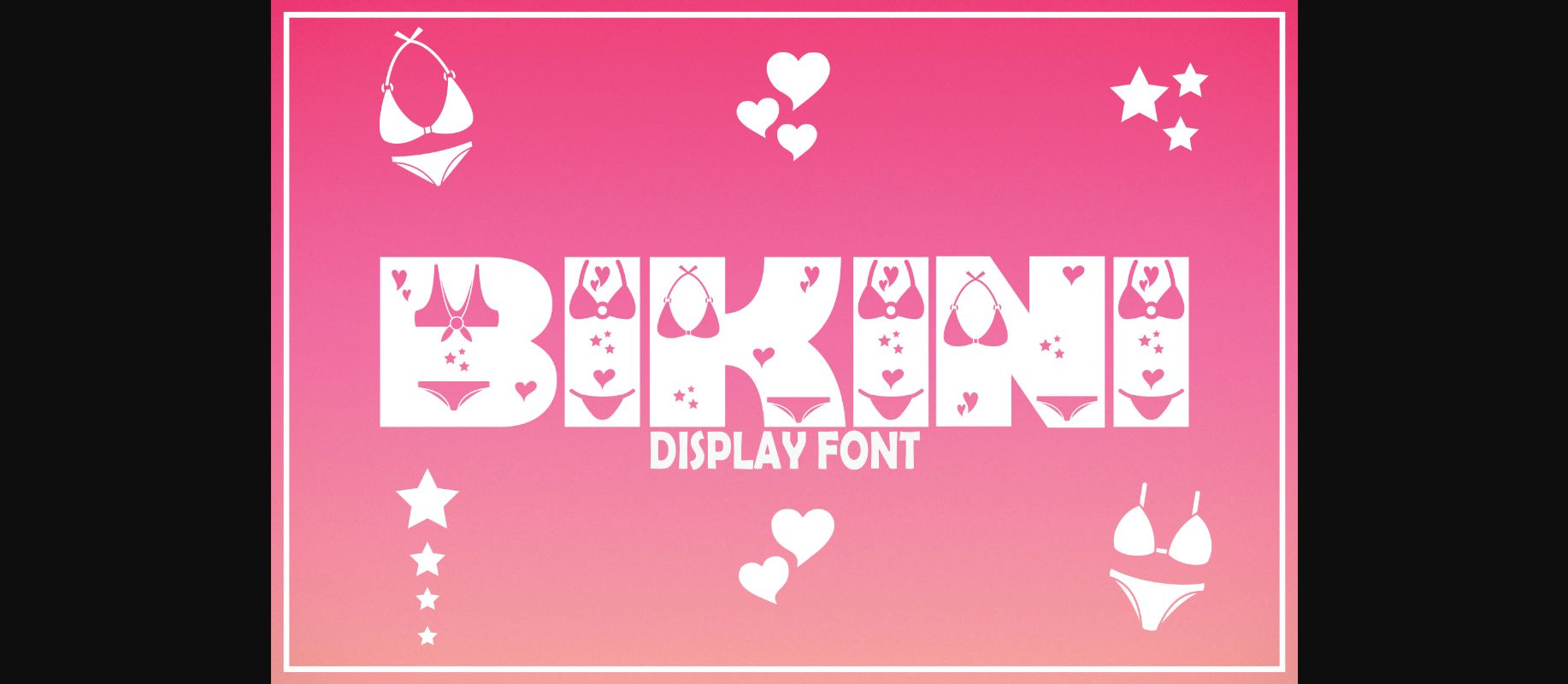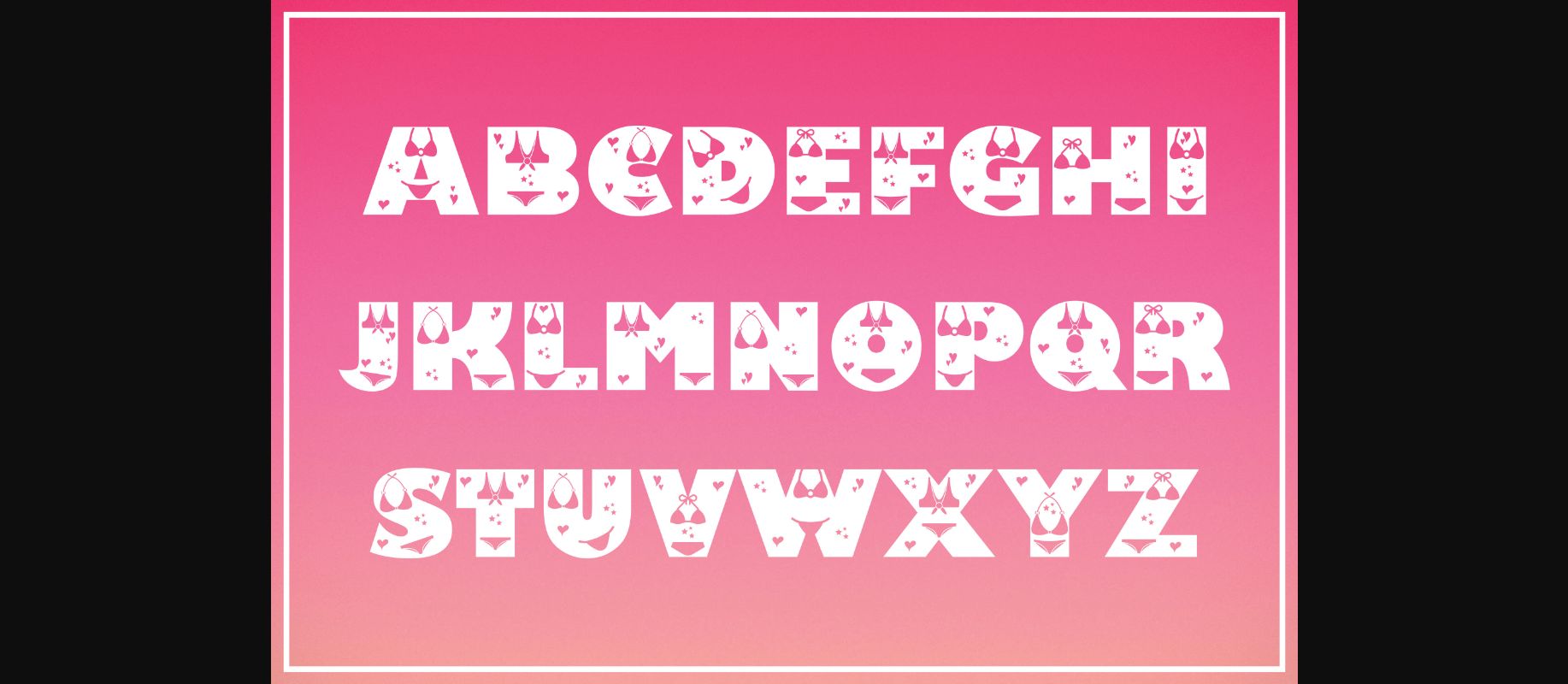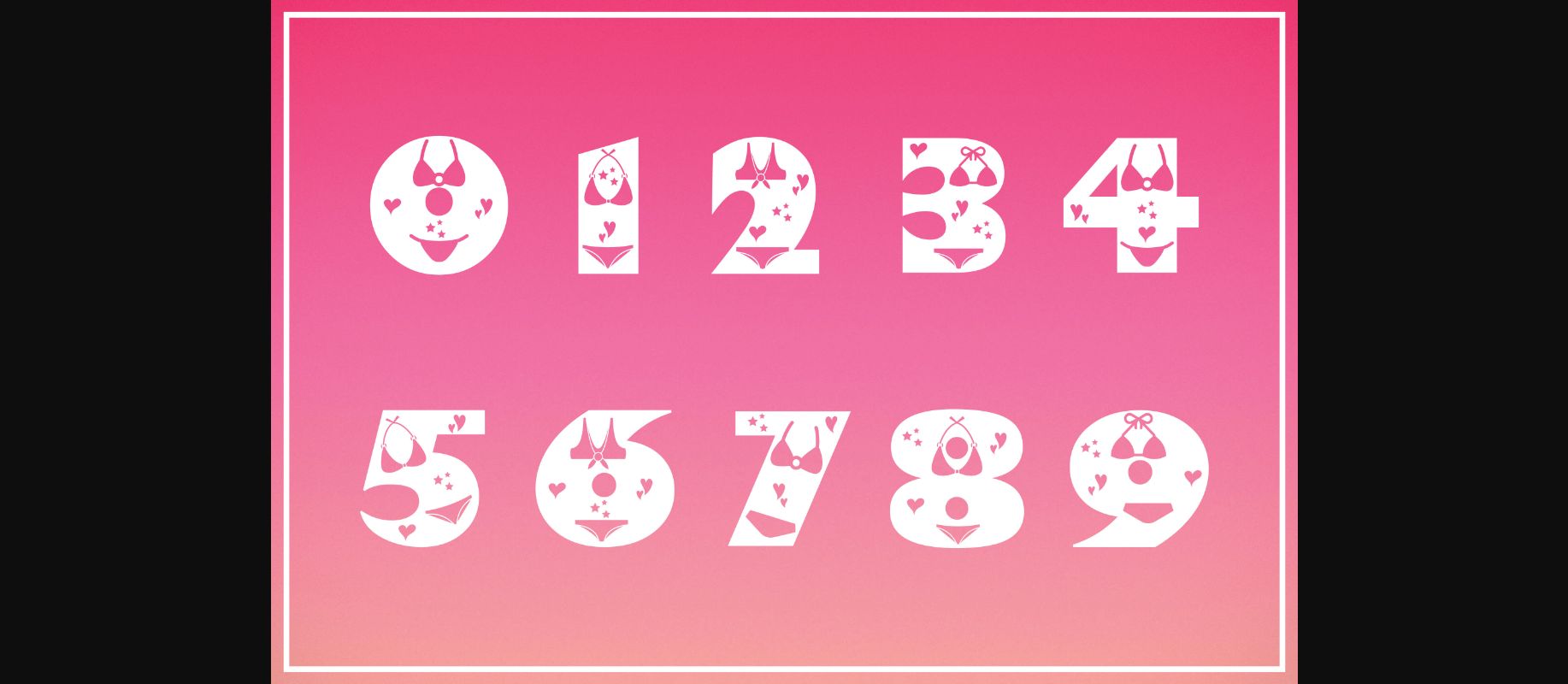
HomeDecorative FontsBikini Font Decorative Fonts Bikini Font FacebookXPinterestWhatsApp 1 of 6 ... Bikini Font Poster 2... Bikini Font Poster 3... Bikini Font Poster 4... Bikini Font Poster 5... Bikini Font Poster 6... About Bikini Font Bikini is a fun and girly decorative display font. It is perfectly suitable for any design or crafty idea! Add it confidently to your projects and you will love the results! DOWNLOAD NOW People also explored Queen Rose Font Malvinas Duo Font Monday Night Font Pitulasan Font Fribash Ayres Royal Gilly Chics Font Destinasy Font Blacks Font 323 0 TagsBikiniBikini Font Previous articleSophia Monogram FontNext articleCat Character Font LEAVE A REPLY Cancel reply Comment: Please enter your comment! Name:* Please enter your name here Email:* You have entered an incorrect email address! Please enter your email address here Website: Save my name, email, and website in this browser for the next time I comment. Personal Use Free Persephone Free Personal Use Free Read more about this font Heart Memory Personal Use Free Read more about this font Trio Personal Use Free Read more about this font Adrenaline Personal Use Free Read more about this font BLOG 5 Fonts That Will Dominate Design Trends in 2026 5 Fonts for 2026 That Will Dominate Design Trends Typography plays a critical role in visual communication, and as we look ahead to 2026, it’s... Best Fonts for T-Shirt Design – Top 2025 Picks Using Fonts in Digital Marketing: Tips to Strengthen Your Brand Identity Fonts That Capture the Spirit of New York City